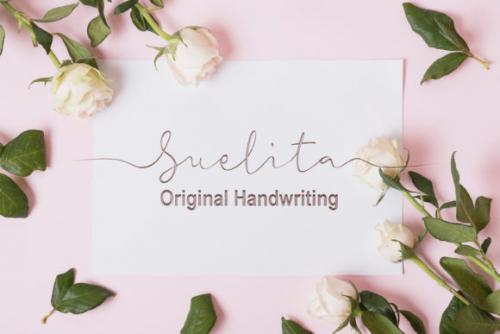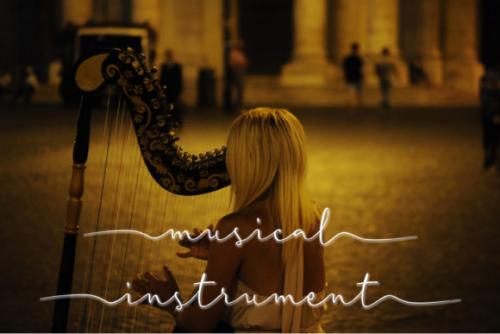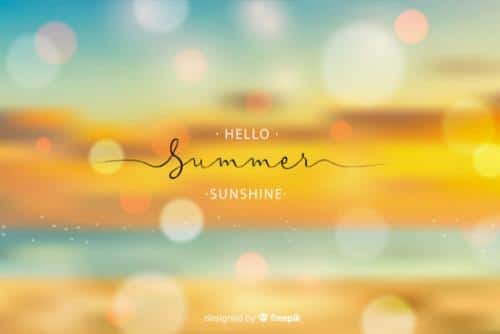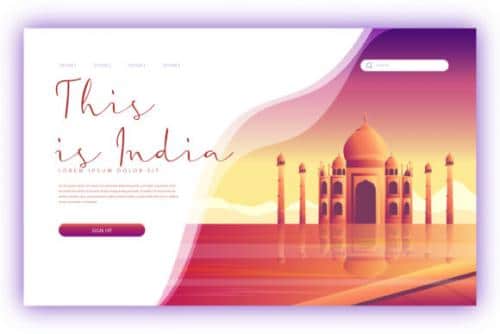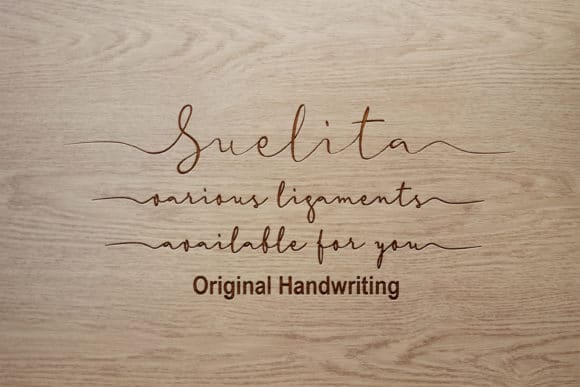
Suelita Font
Combining original handwriting with a charming style, Suelita is a true standout font! Use it to add a romantic touch to your next craft project.
• Designer: Edric Studio